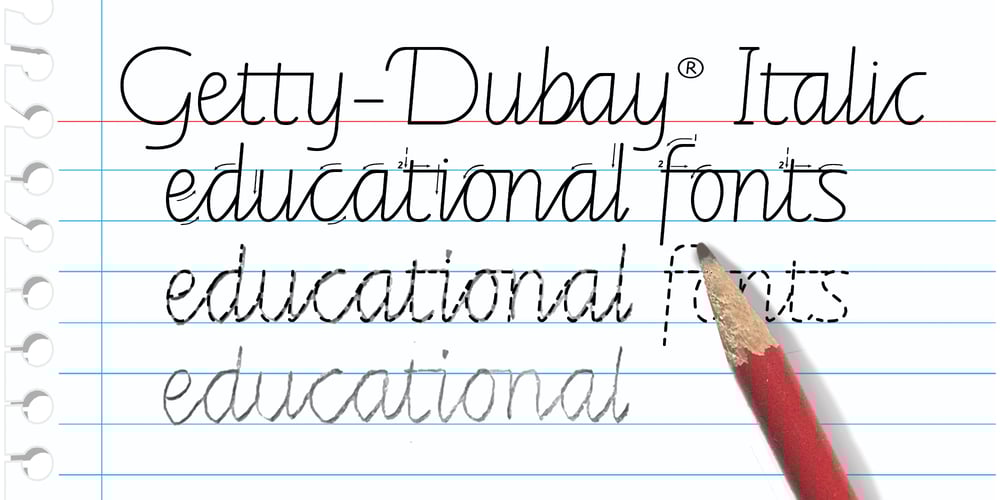
Getty Dubay Font Family was designed by Jonathan Dubay and published by Handwriting Success. Getty Dubay contains 72 styles and family package options. The Getty-Dubay® family of fonts has been 500 years in the making — so that you can make your handwriting worksheets in seconds.These fonts are modern descendants of the chancery handwriting style (now called “Italic”) from the Italian Renaissance, when master scribes designed a fluid and graceful hand, inspired by the proportions of the golden rectangle and Roman capitals.The Italic style has been in constant use since then. In modern times, it has been celebrated by Alfred Fairbank, Lloyd Reynolds and many others including authors Barbara Getty and Inga Dubay in their Getty-Dubay® Italic method. The Getty-Dubay® monoline handwriting fonts provide a replete resource to effectively model the highly-legible and beautiful Italic handwriting style. These are the official fonts of Getty-Dubay® Italic. Download the Getty-Dubay® Font Guide for everything you need to know about the Getty-Dubay® fonts.The Getty-Dubay® Joined fonts produce a clean cursive handwriting with join-as-you-type ease. Four join options are included: Standard, Pointed (altered joins into m, n and r), e k (utilizing the two-stroke e and one-stroke k), and Beginning (easiest joins only). The Getty-Dubay® Basic fonts provide sans-sarif clarity suitable for young writers. The Getty-Dubay® Precursive fonts add serifs to the lowercase letters, while retaining the pure Roman capitals of Basic Italic. The Getty-Dubay® Smallcaps fonts make mixed capitals easy to use. All Getty-Dubay® fonts come with scaffolds such as dashed contours, ruled lines, directional arrow and starting dots (for Basic and Smallcaps). They support multiple Latin-based languages from around the world.Getty-Dubay® is a registered trademark in the United States.